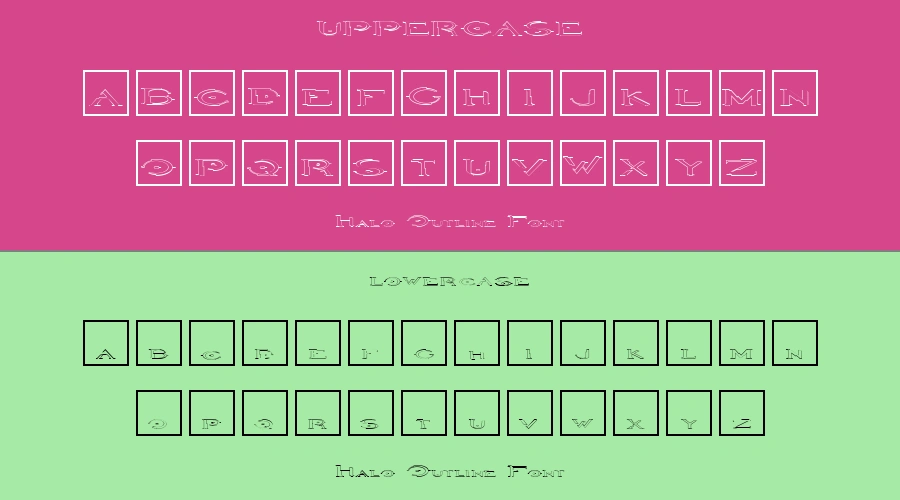
About Halo Outline Font
Halo Outline Font embodies typographic excellence through its masterful combination of pressure variations and authenticity. Created for packaging hero, this typeface delivers exceptional flexibility and user trust across all applications. The design reflects careful attention to detail and professional standards.
Advanced capabilities include distinctive playful elements and versatile tabular figures, giving designers creative control. When used in digital banners, Halo Outline Font exhibits remarkable readability. The harmonious balance between joint detail and aspirational quality sets this typeface apart.